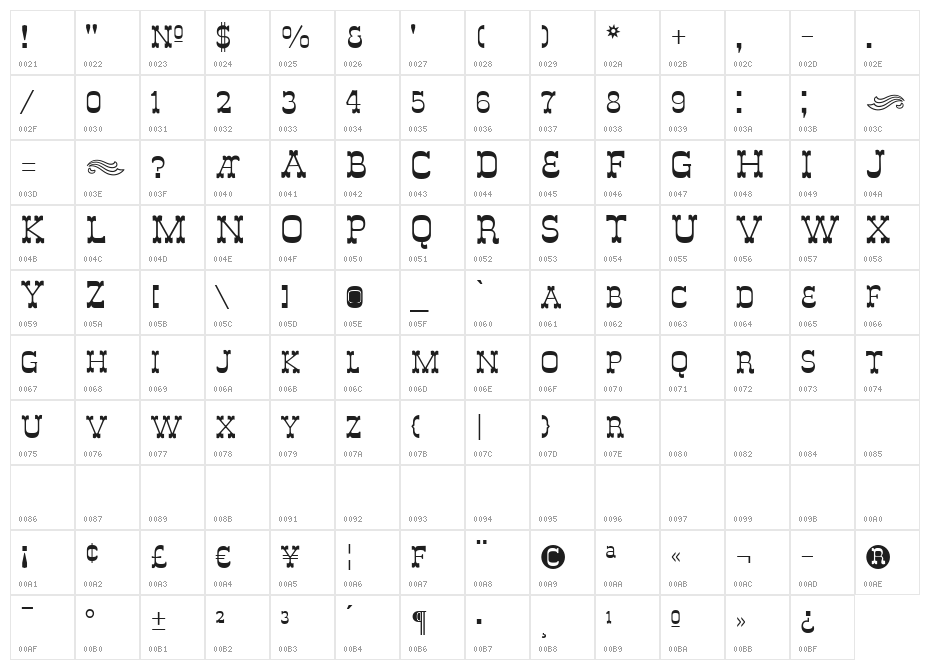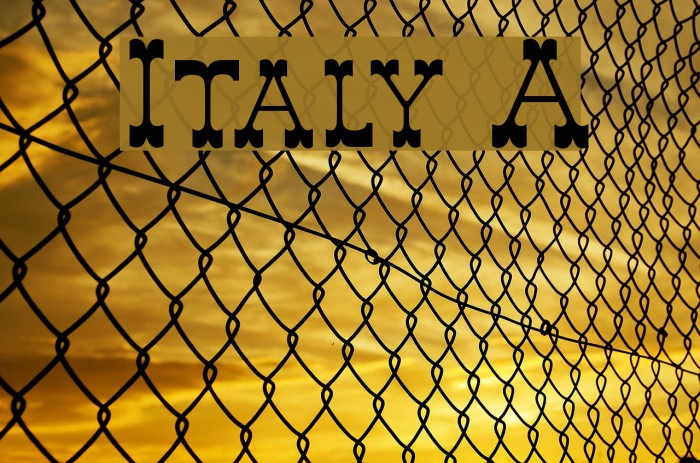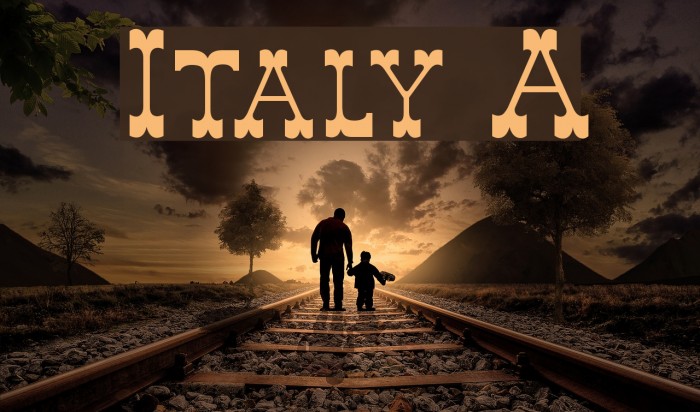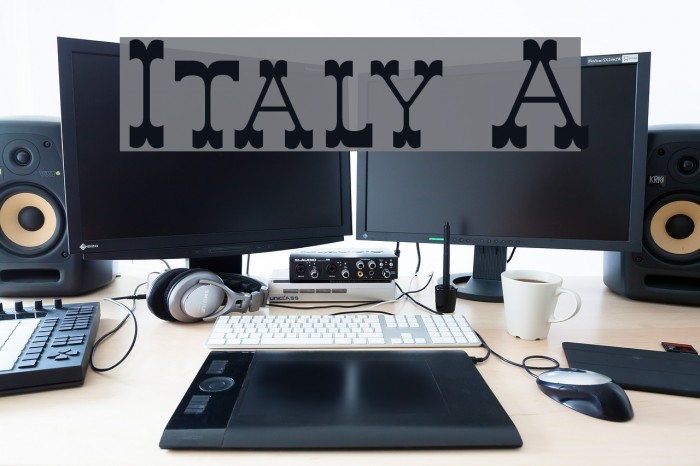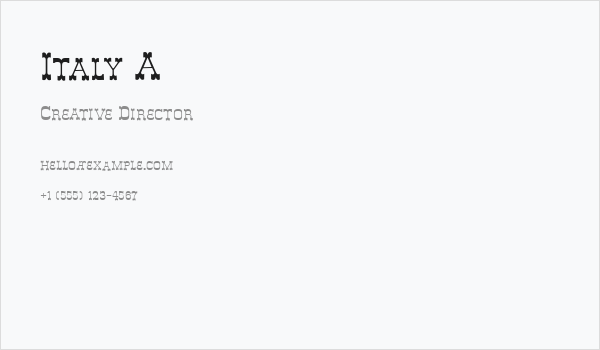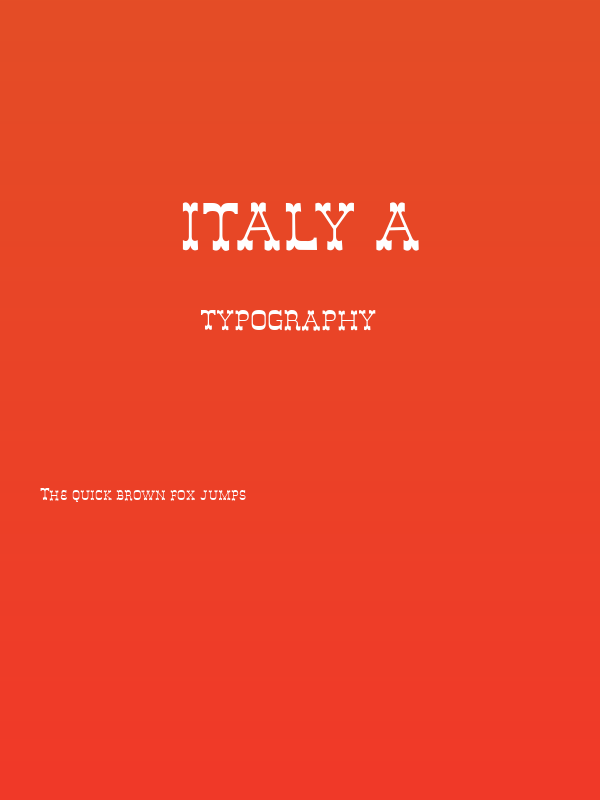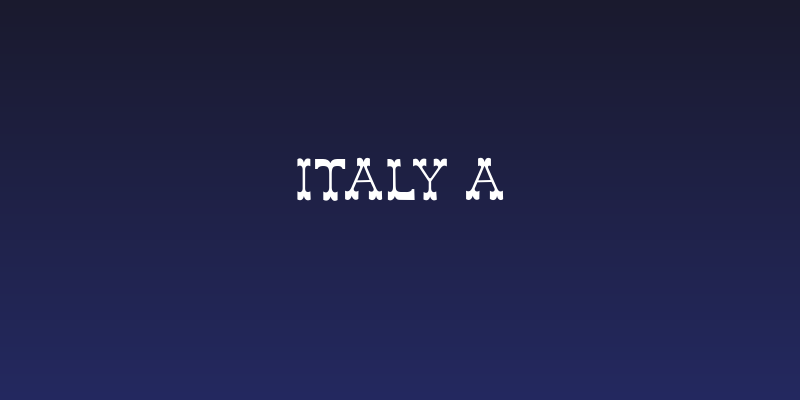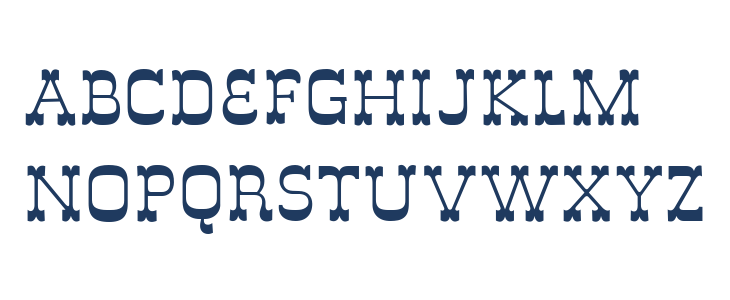
Italy A Font
Italy A Description
This font features a bold and robust slab serif style, characterized by thick, block-like serifs that give it a strong and authoritative presence. The uppercase letters are uniform in height, with a consistent stroke width that enhances readability. The lowercase letters maintain the same boldness, ensuring a cohesive look across different text sizes. Numbers and special characters are designed with the same attention to detail, making them stand out while remaining legible. The overall design is reminiscent of vintage typefaces, yet it maintains a modern appeal that makes it versatile for various applications.